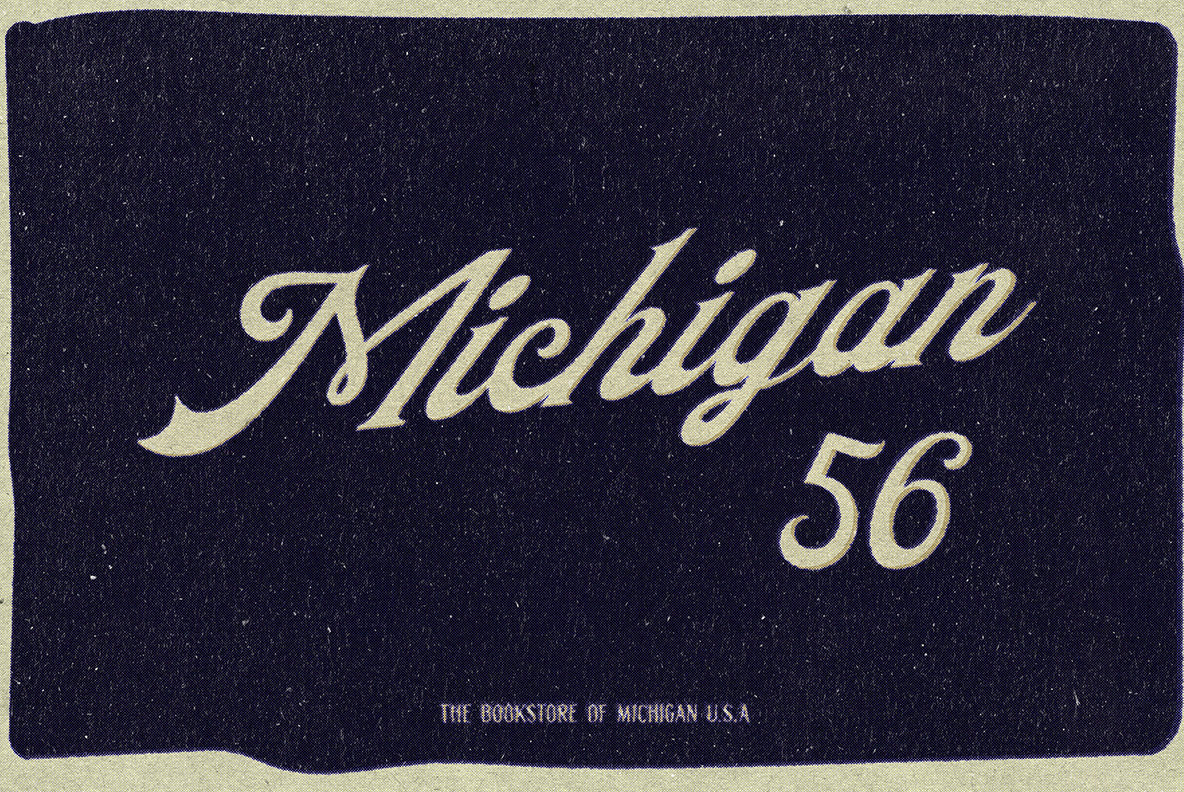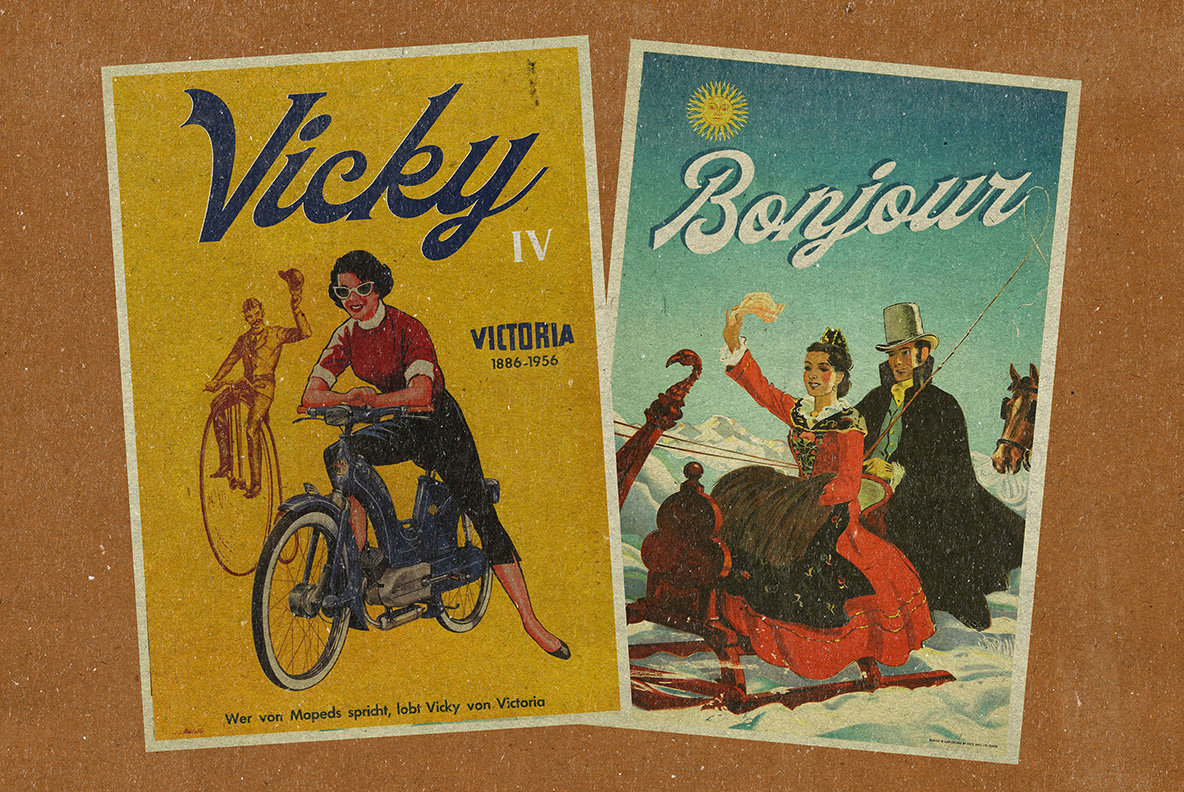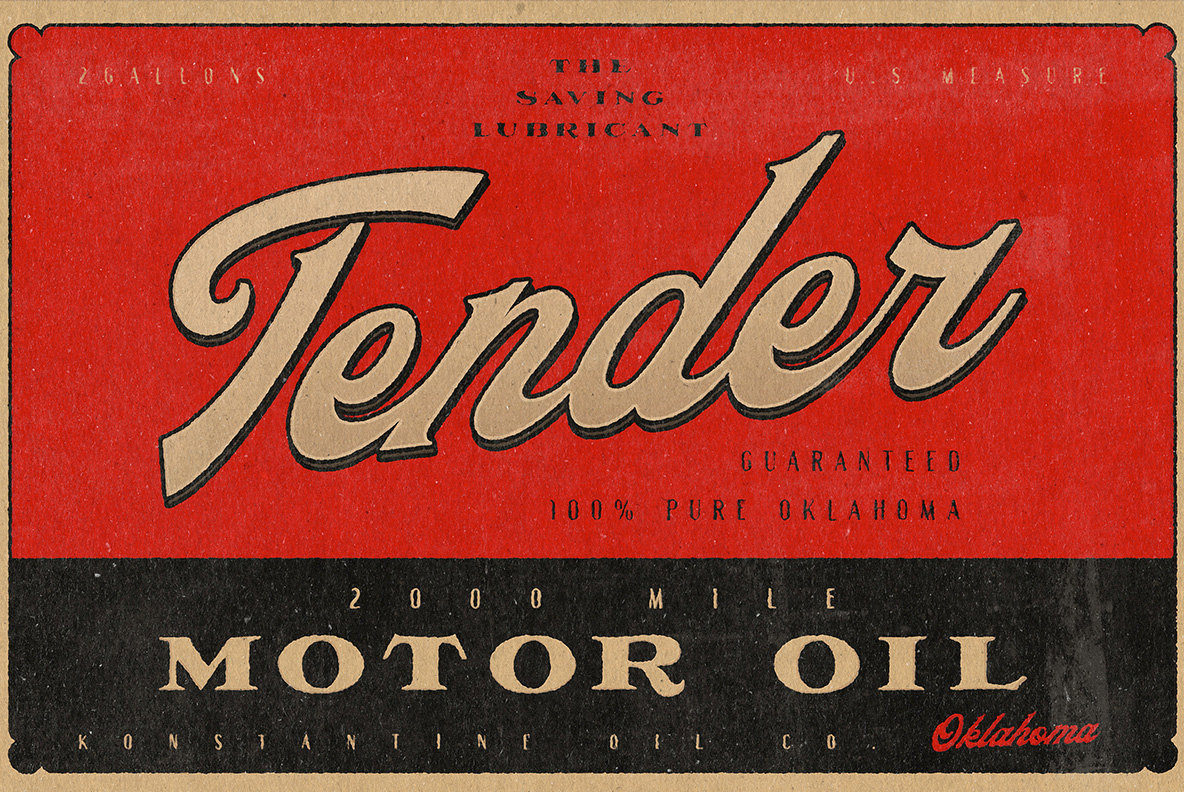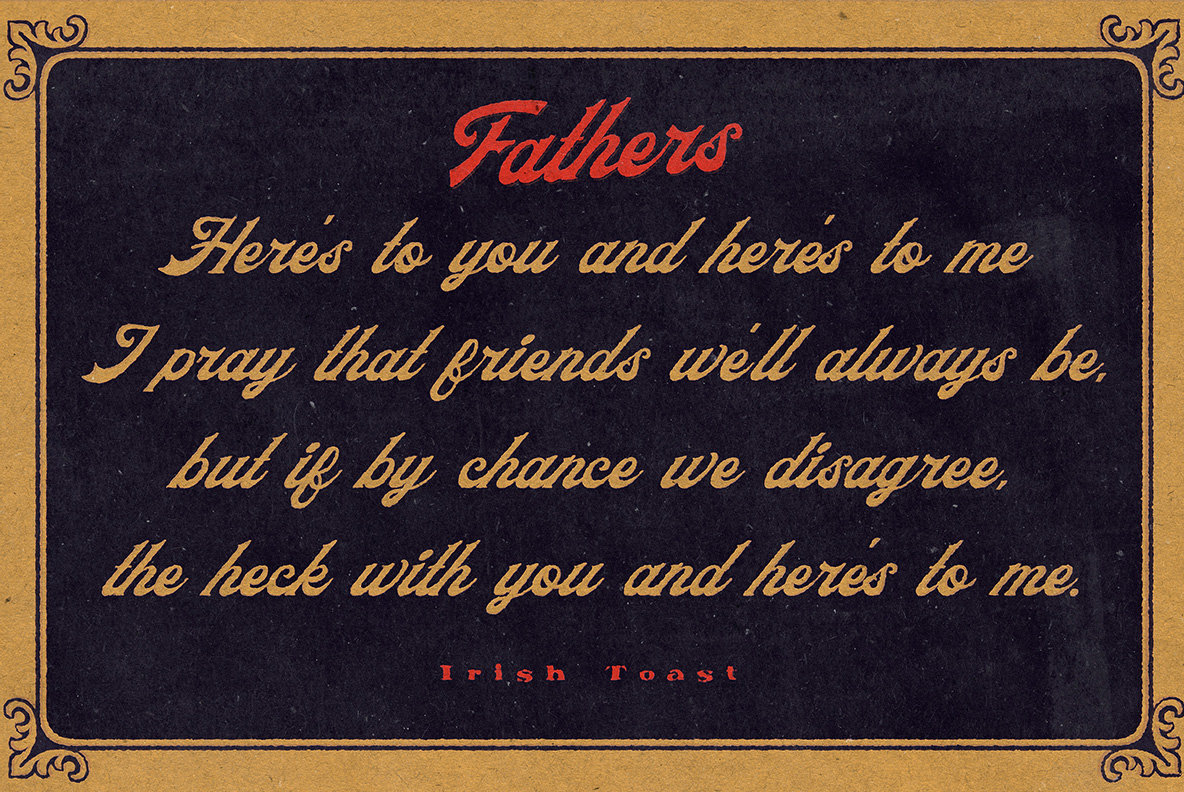
Fathers Font
Fathers Script
Step back in time with Fathers, a typeface that evokes the charm and character of vintage advertising from the mid-20th century. Drawing inspiration from the classic packaging and promotional materials of the 1950s through the 1980s, this font offers an authentic retro feel perfect for any project seeking a touch of nostalgia. Fathers is ideal for resurrecting the warm, familiar aesthetics of vintage logos, classic packaging, and old-school posters. It's a nod to the past, enabling designers to effortlessly infuse their work with a sense of historical depth and classic appeal.Fathers: A Font Steeped in Nostalgia